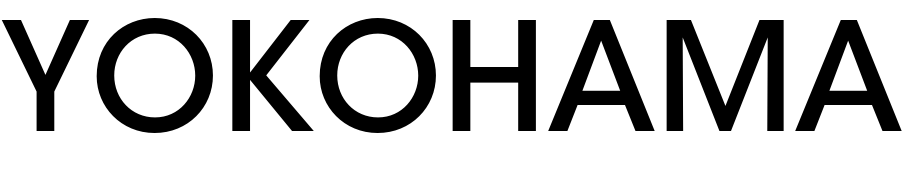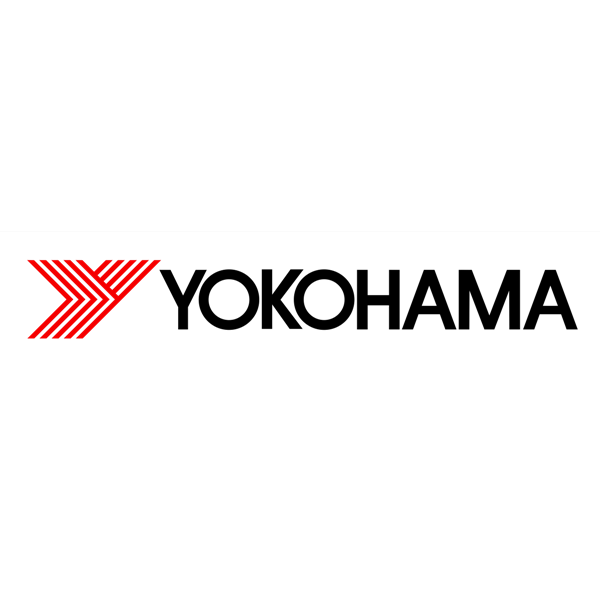
Yokohama Logo Font
AutomobileYokohama is a rubber tire company based in Tokyo, Japan, founded in 1917 as a joint venture between Yokohama Cable Manufacturing and B.F. Goodrich. Yokohama Rubber Company is now the seventh-largest tire manufacturer in the world, with 120 companies across the globe and over 20,000 employees.
The font used for the logo of the Yokohama tire company is very similar to ITC Avant Garde Gothic Medium, a geometric sans-serif font that was inspired by the font used for the Avant Garde magazine's logo. Currently, the font family has 5 weights (4 of which are condensed), with corresponding obliques for typefaces with the widest width.